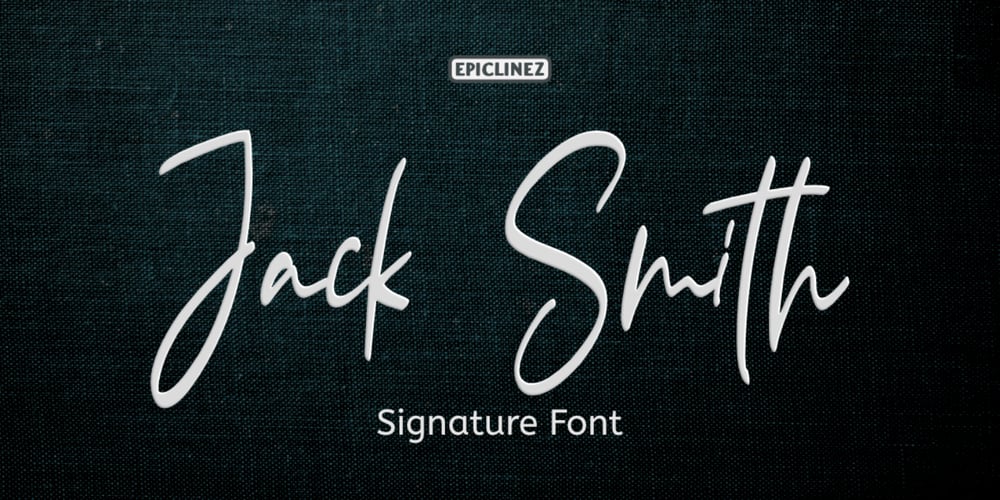
Jack Smith Font Family was designed by Aldy Sidik and published by Epiclinez. Jack Smith contains 1 styles and family package options. Jack Smith is a signature script font with a natural handwritten feel. This font is a good choice for branding and logotype design projects.